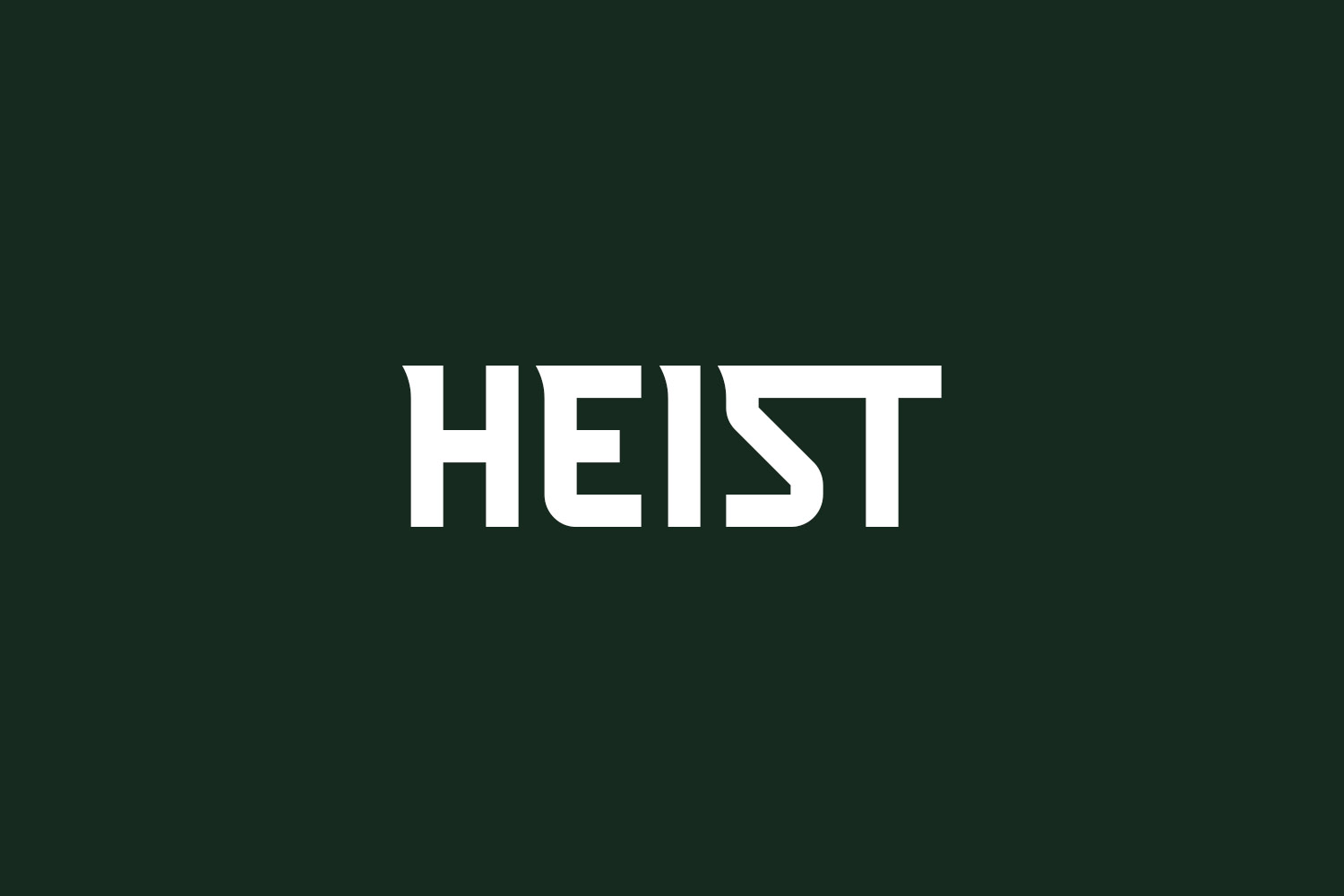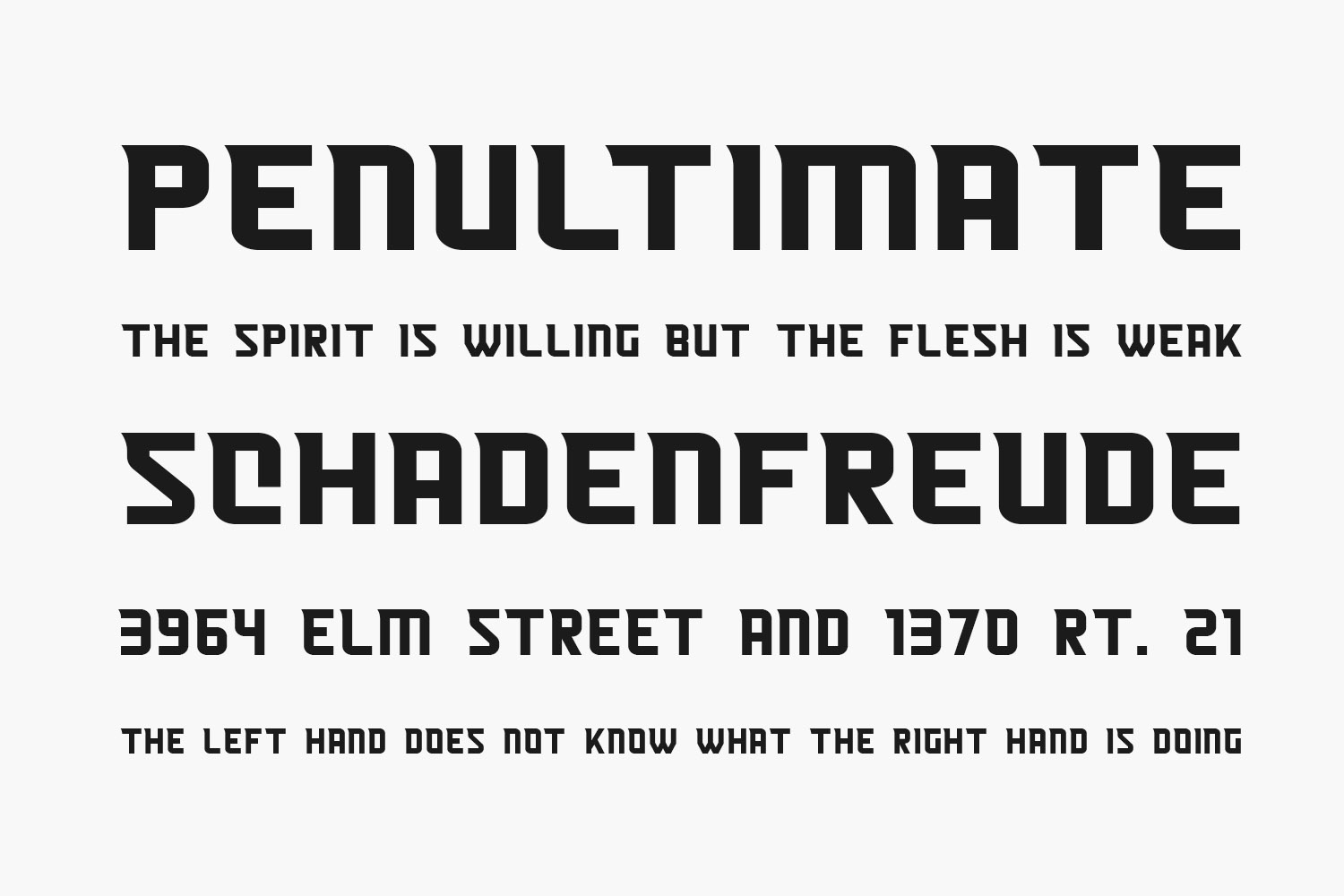
Heist Free Font is a cool, bold, sporty display font. It can be added to various designs related to athletic events, racing or speed. Have fun with this beautiful font and explore its endless variations. Heist Free Font was designed by Nyalaapi and is free for personal use only. Please purchase the full version for commercial use.